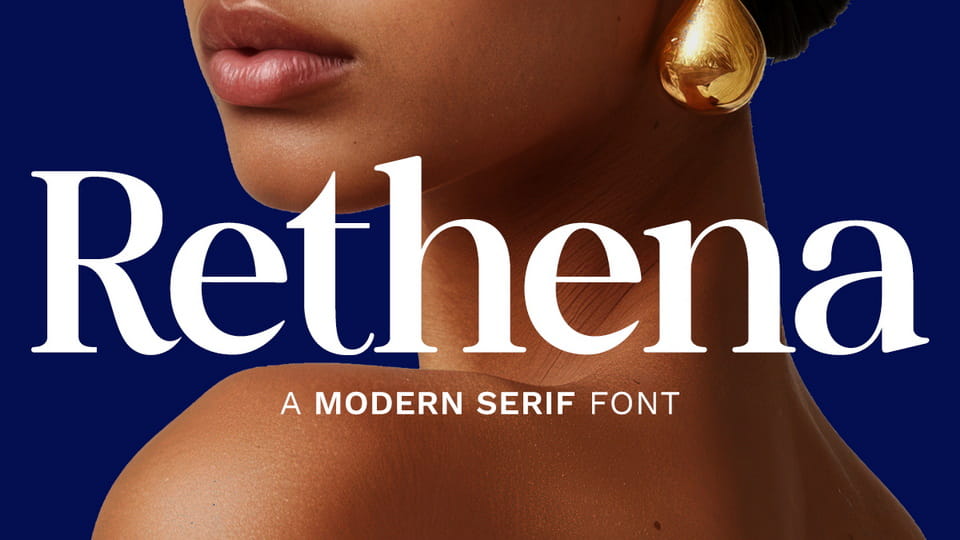
Download Rethena font, a modern serif typeface that blends timeless elegance with bold sophistication. Perfect for branding, editorial design, packaging, and luxury logos, Rethena adds a refined touch to any project.